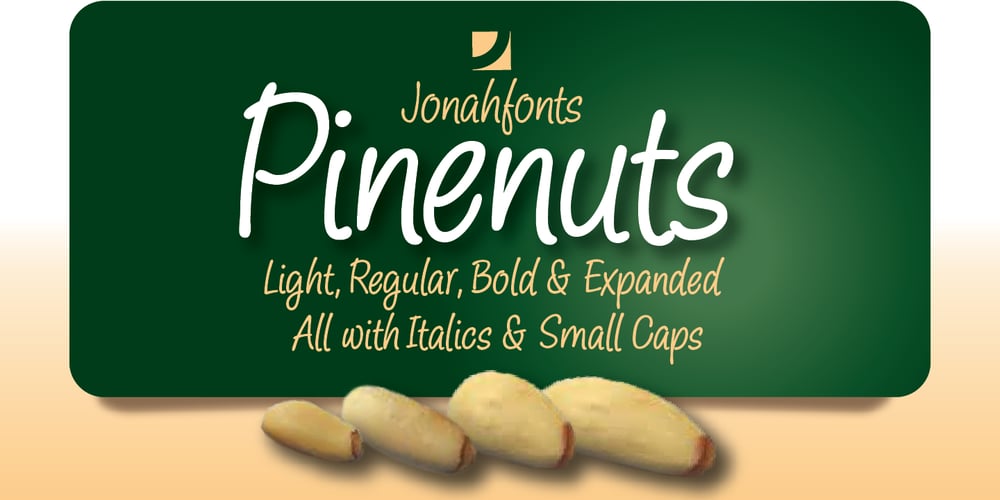
Pine Nuts Font Family was designed by John Nahmias and published by Jonahfonts. Pine Nuts contains 12 styles and family package options. Pine Nuts is very suitable for a variety of designs, packaging and quick statements. For a connected version please visit Pine Nuts United.